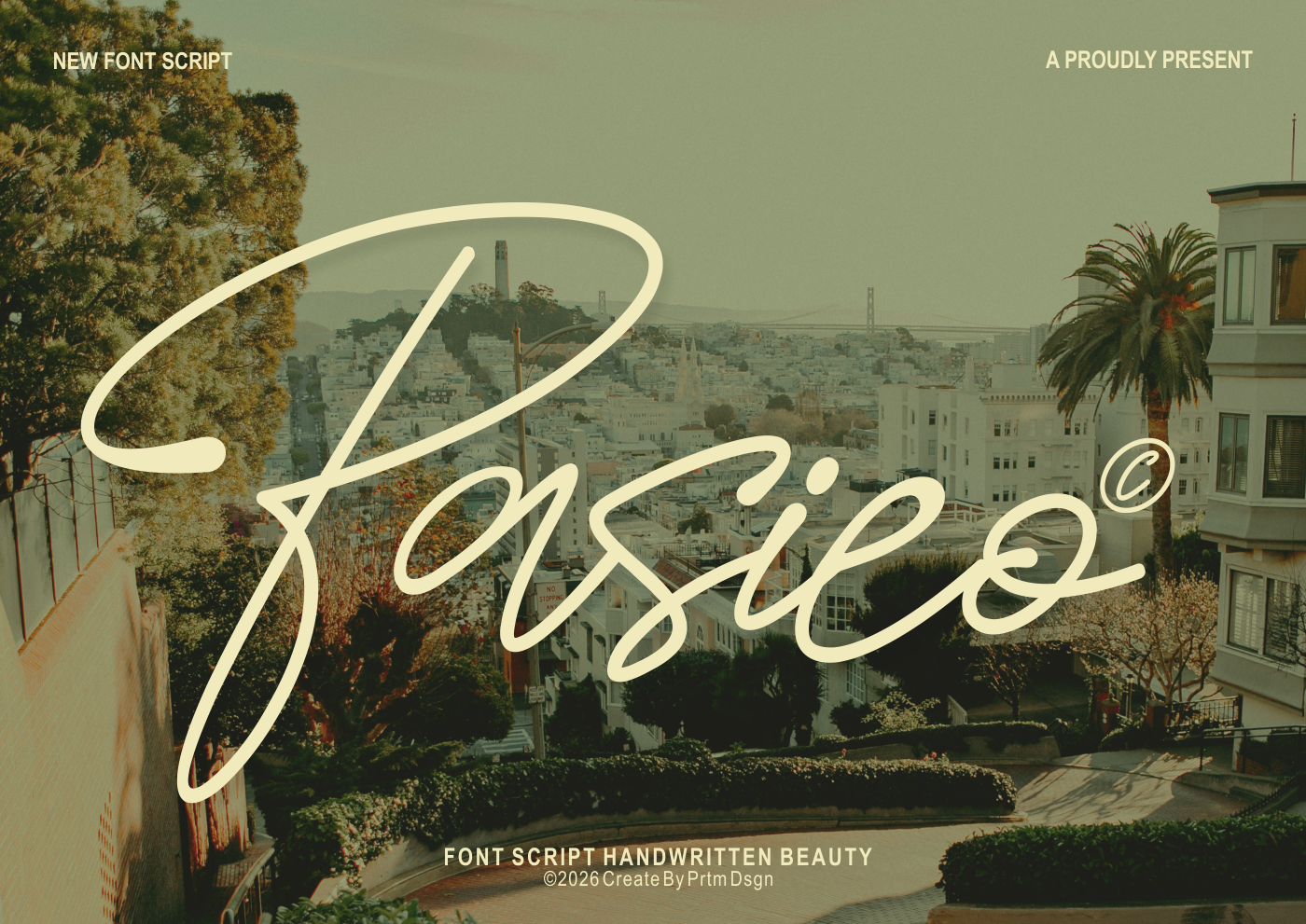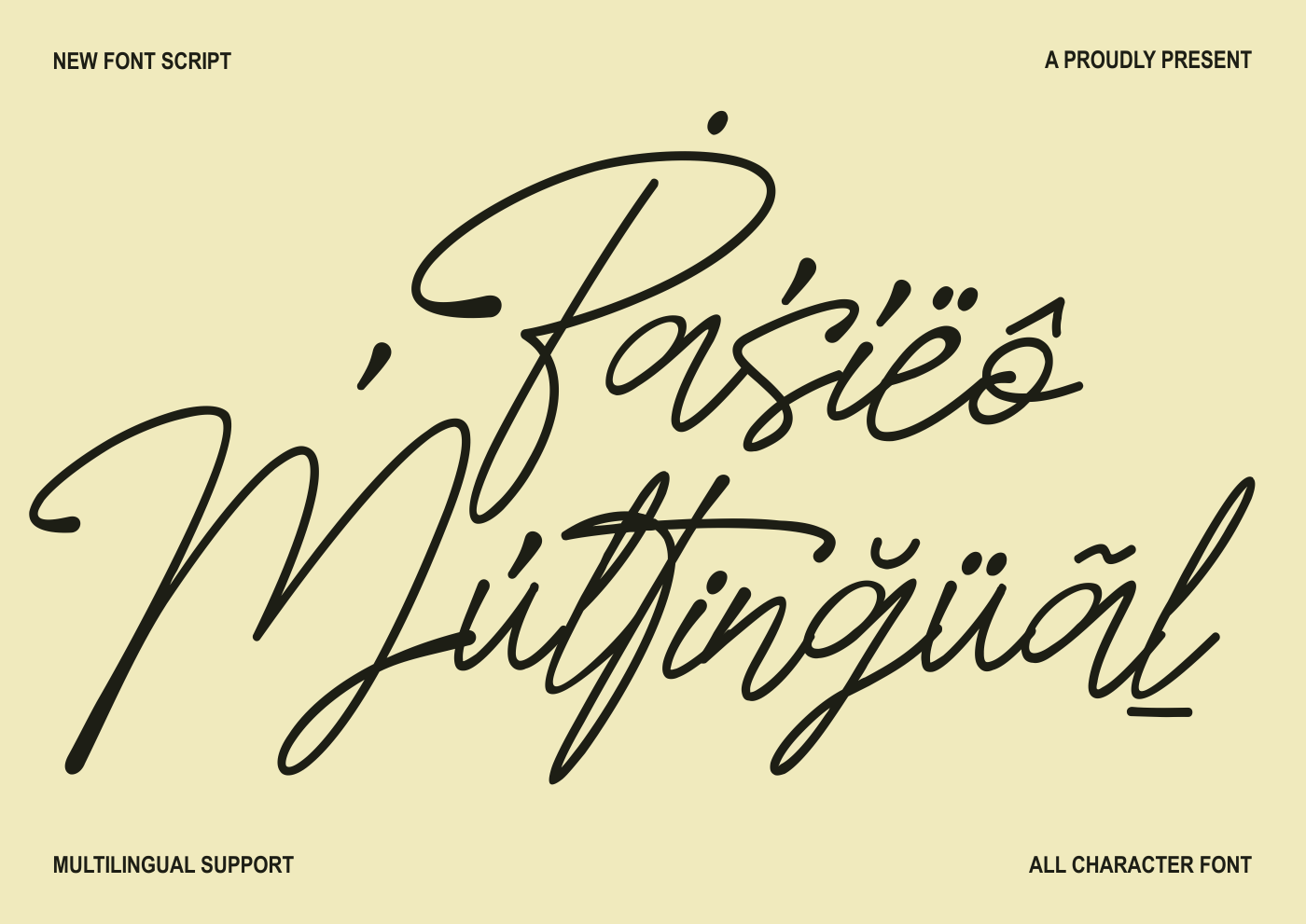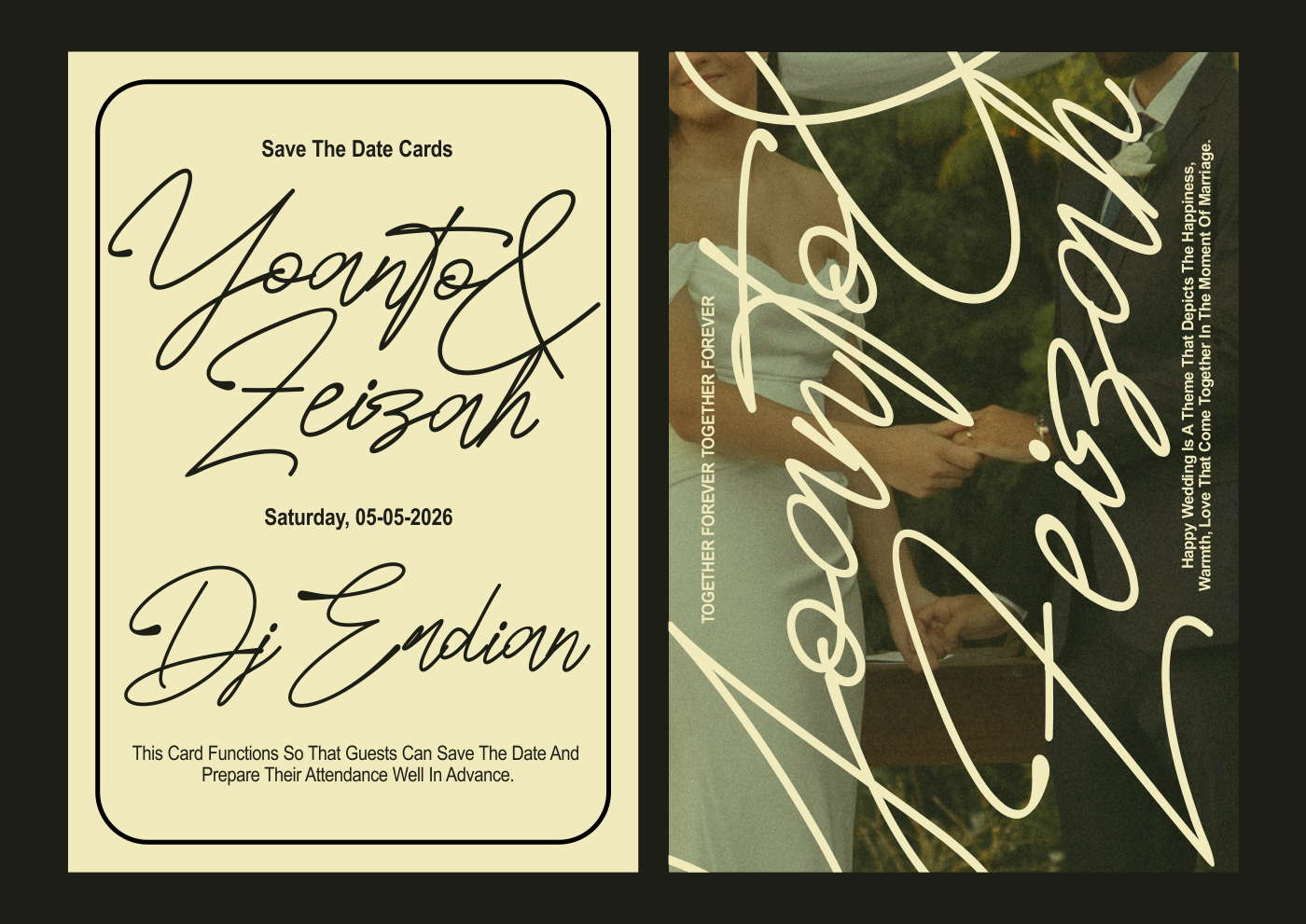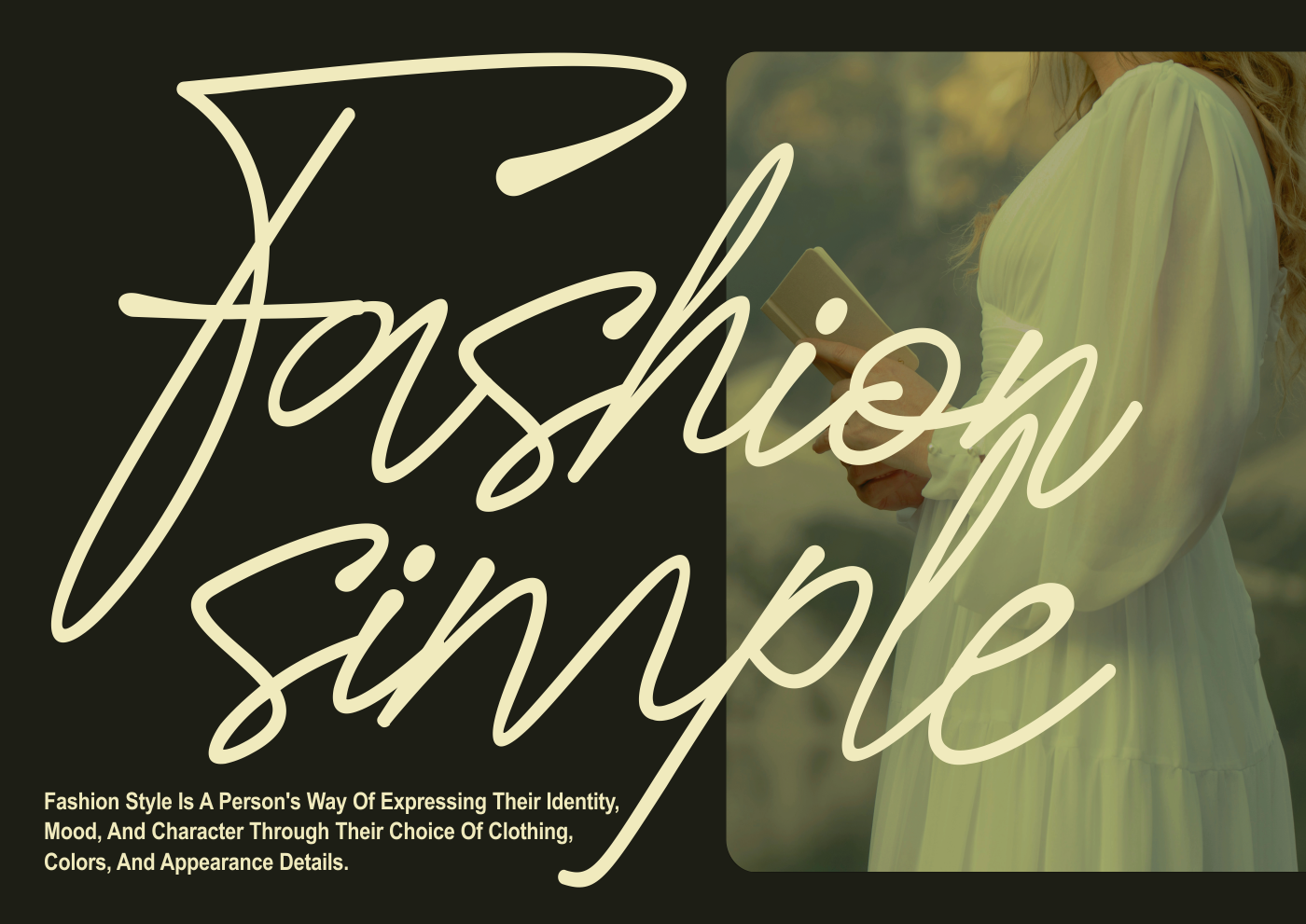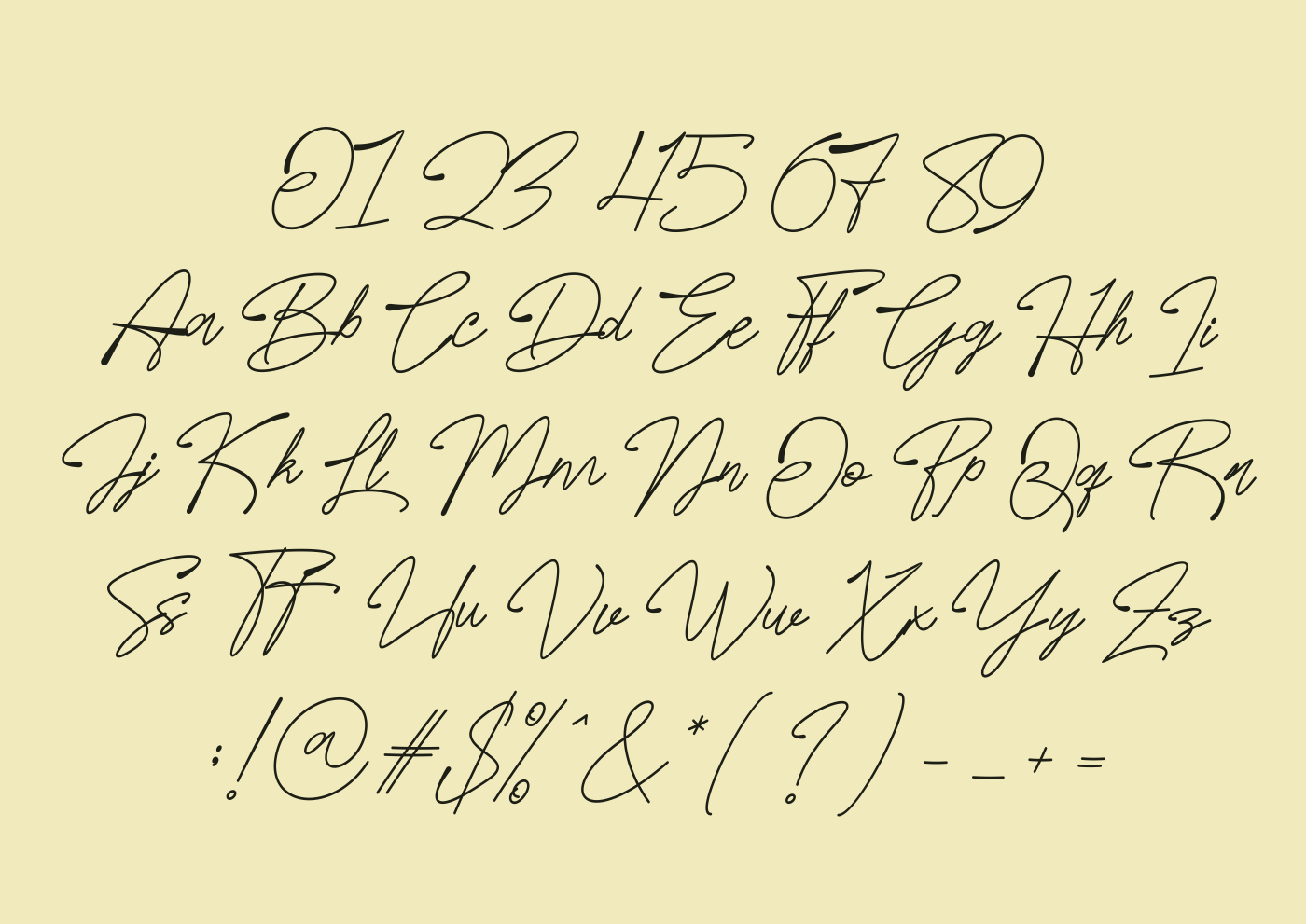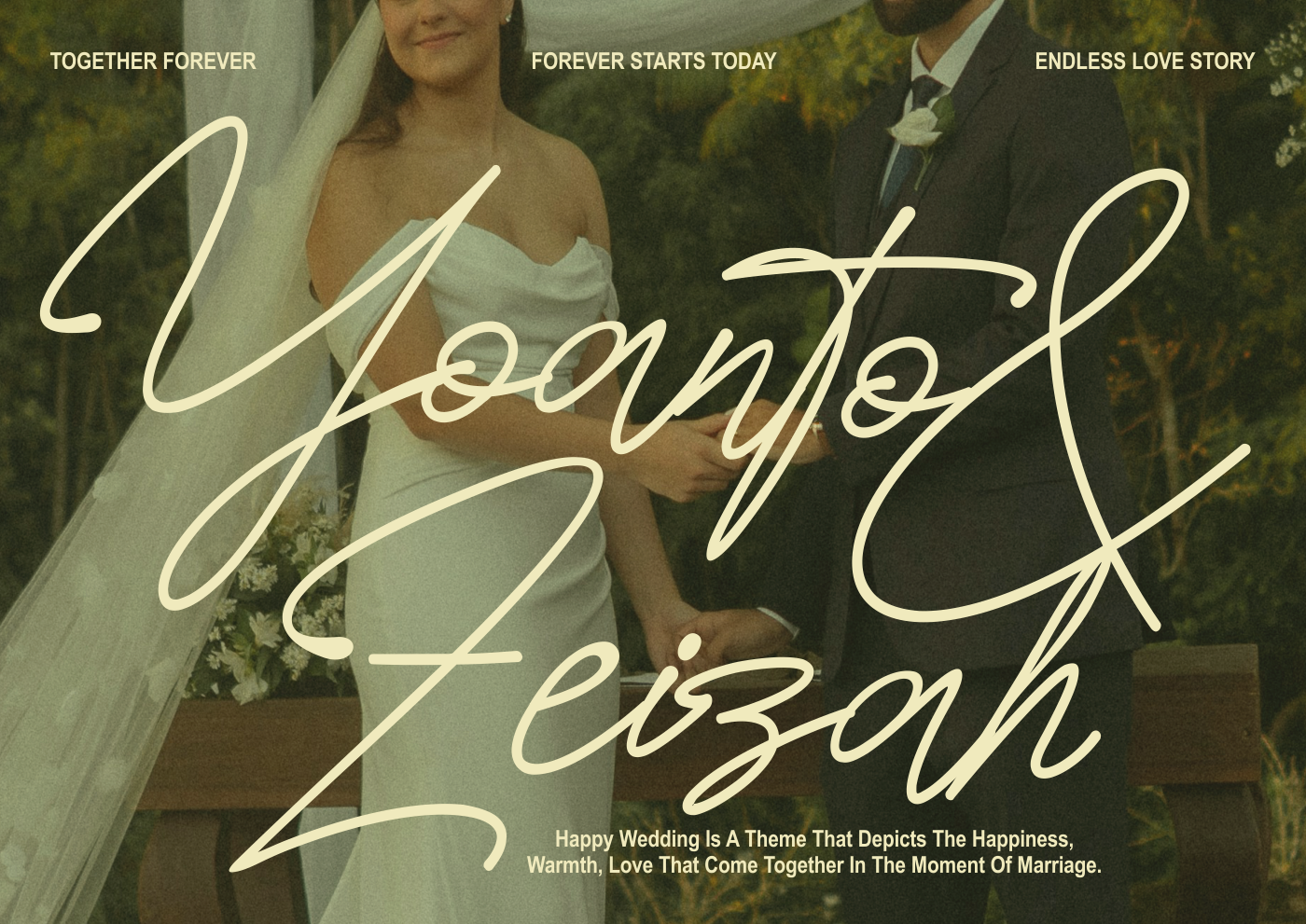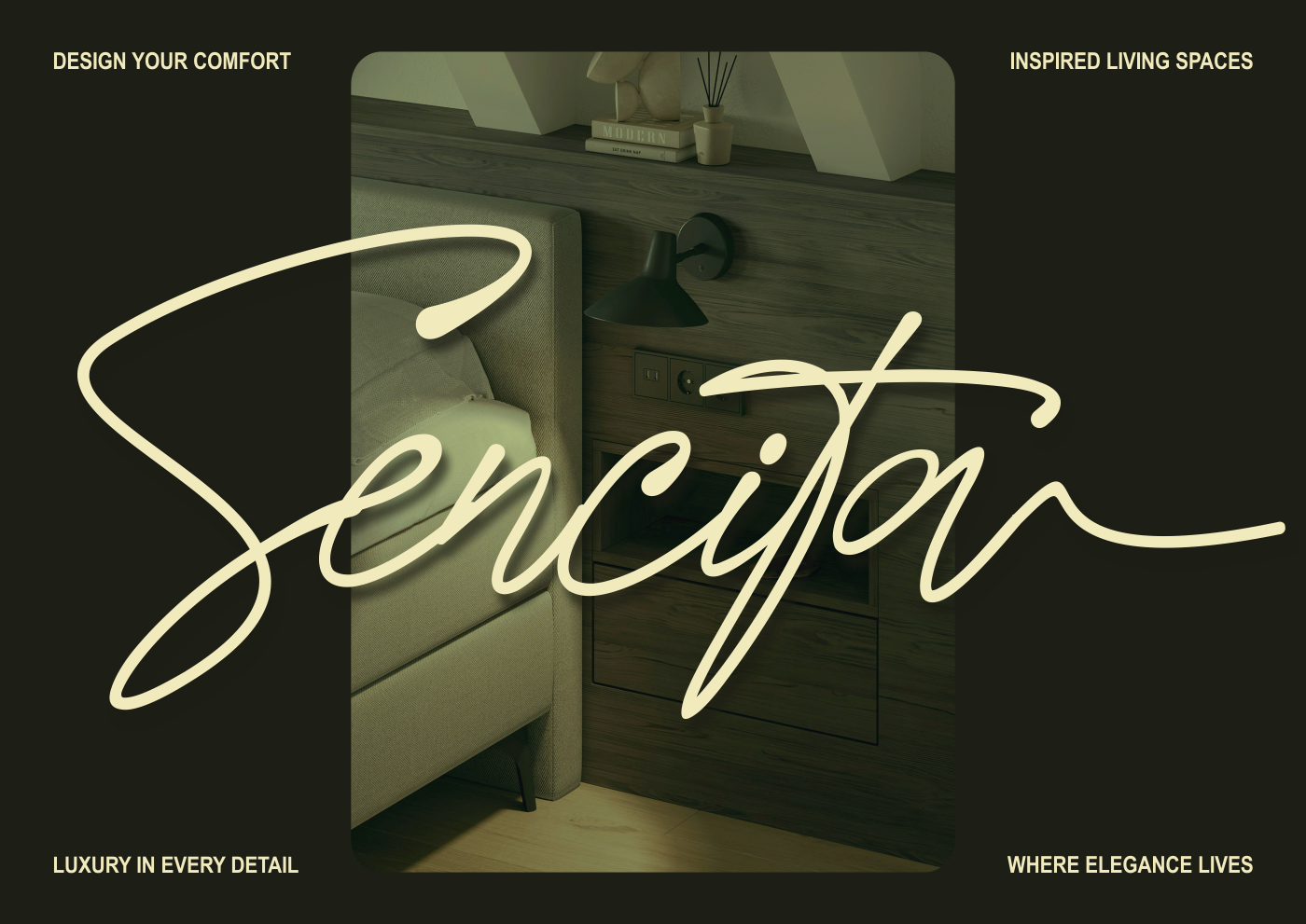
This font is a handwritten script designed with an elegant, refined, and artistic character. Each letter's curves create a natural, handwritten feel, yet remain well-structured for easy reading. Consistent, thin lines create a light and modern feel, while the flowing letterforms create a luxurious and sophisticated feel.
This font is perfect for a variety of design needs that emphasize aesthetics and a personal touch, such as wedding invitations, fashion branding, logos, inspirational quotes, and editorial design. The combination of curvature and style allows this font to create a strong visual identity without losing its soft and exclusive feel.
With full character support, including capital letters, lowercase letters, numbers, and symbols, this font provides the freedom to explore professional designs.